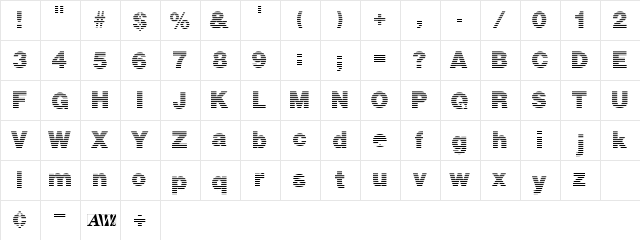
BigBlue Regular
Design Context for BigBlue Typeface
BigBlue is a composed and adaptable typeface that performs quietly and consistently across a wide range of design contexts.